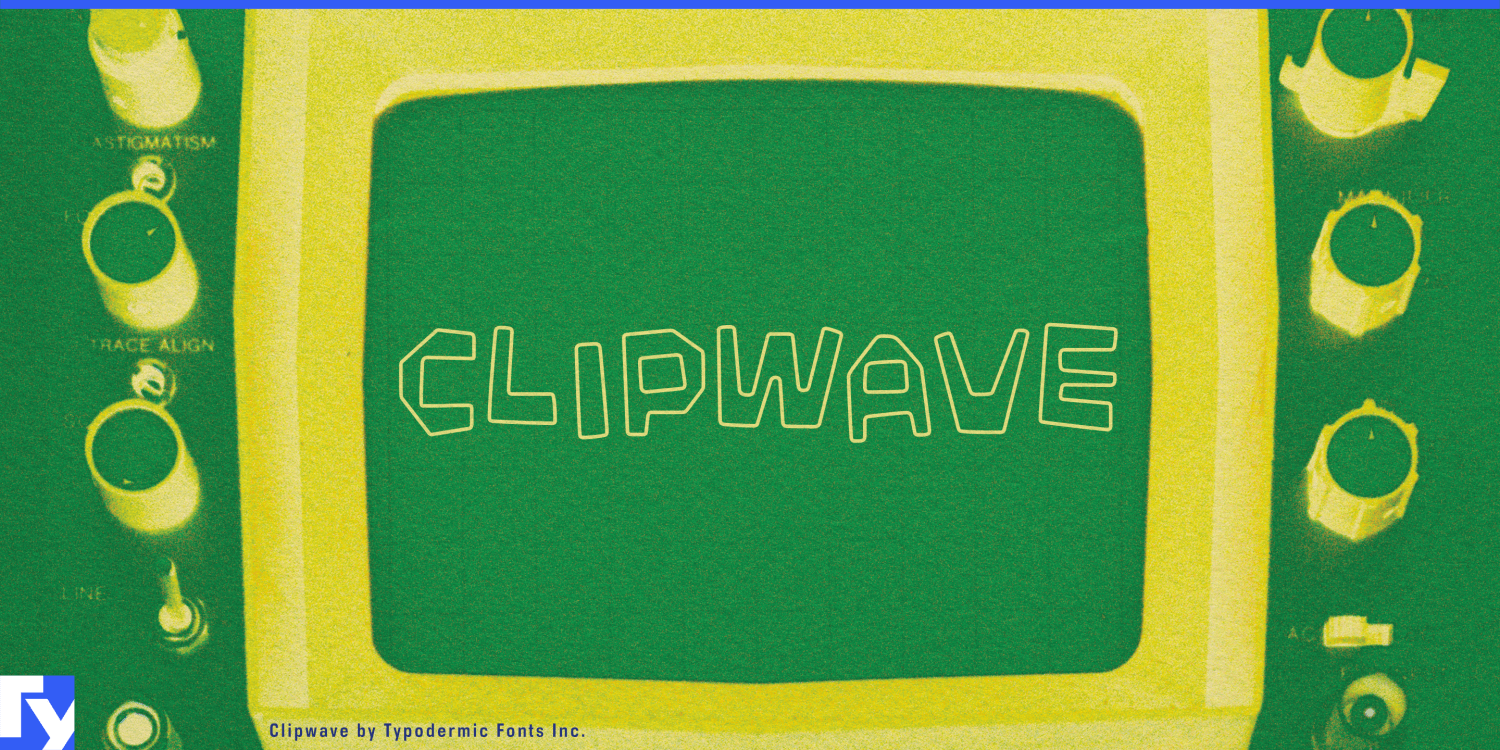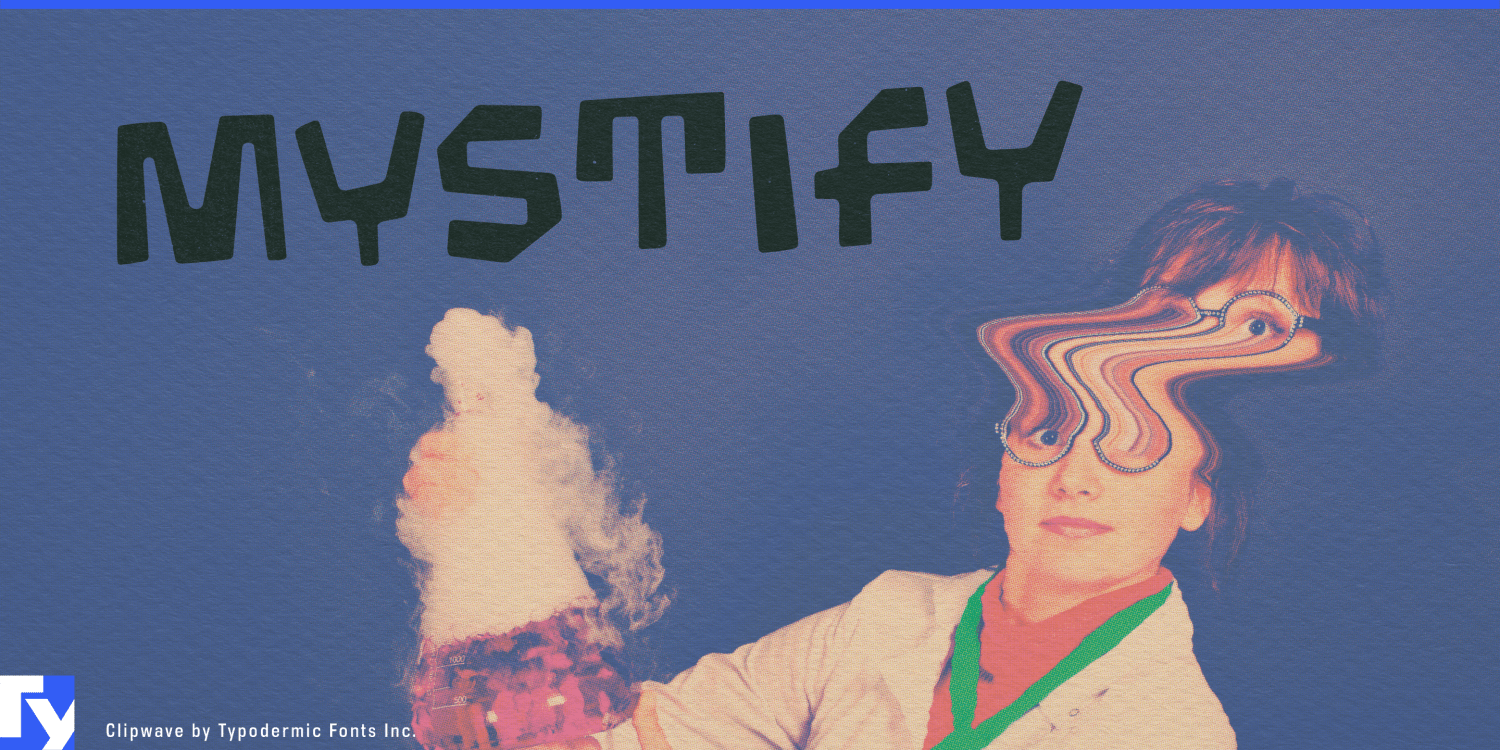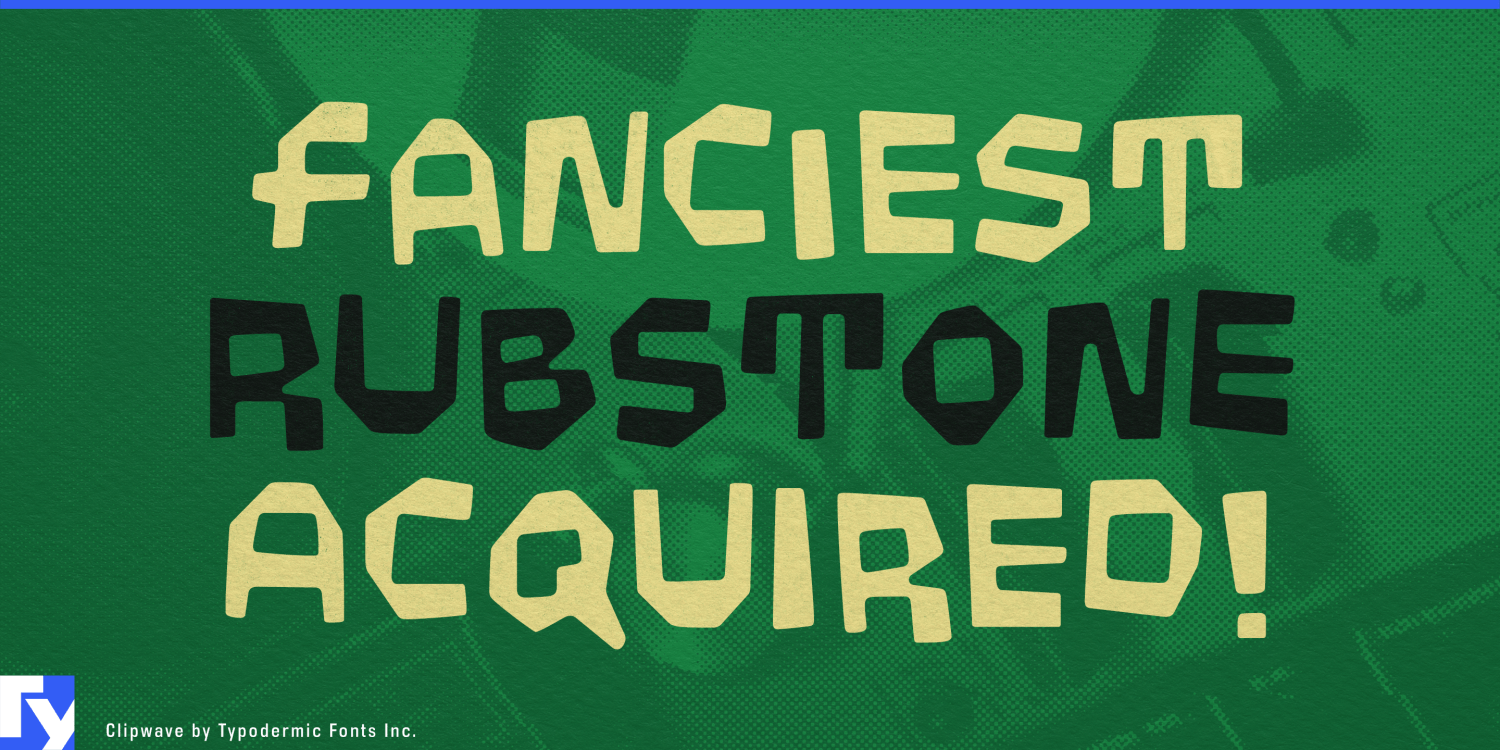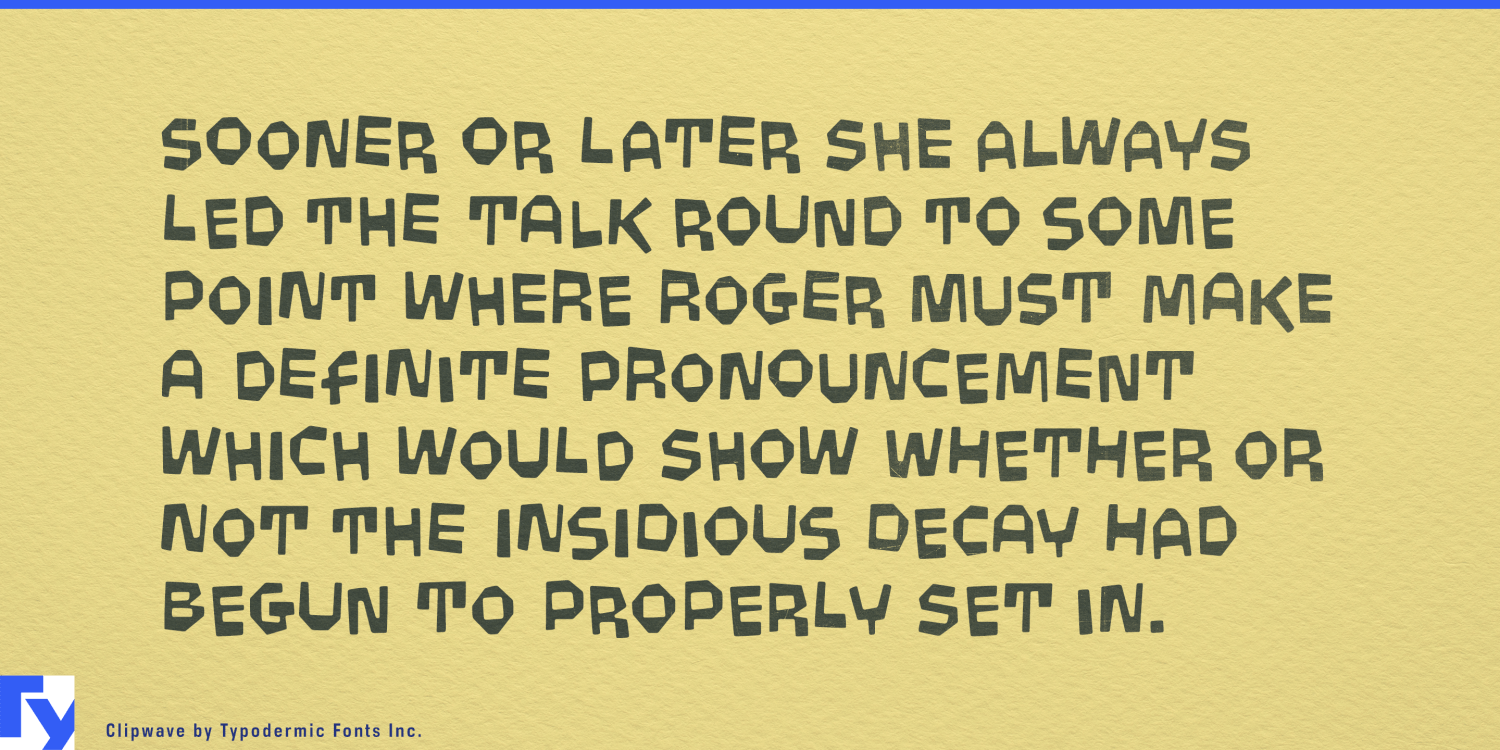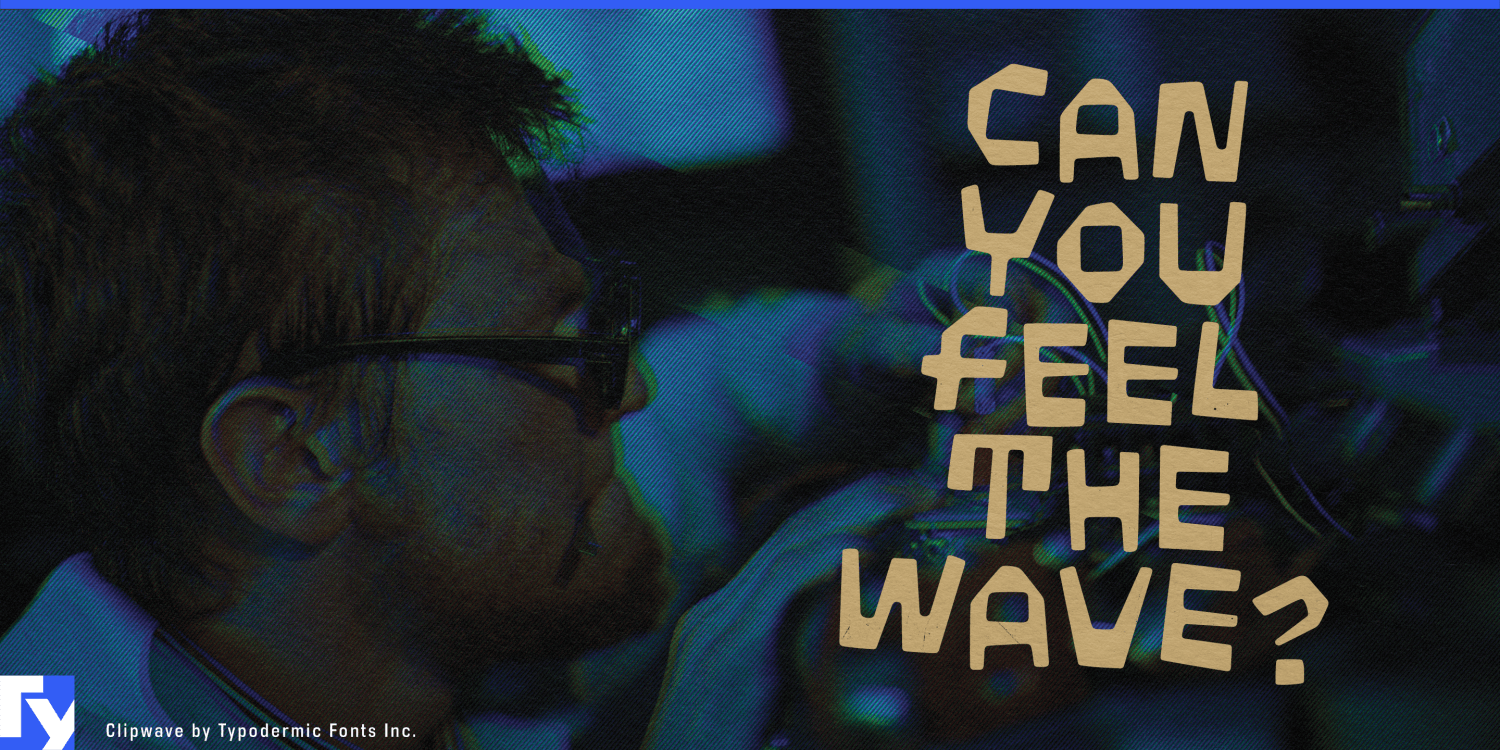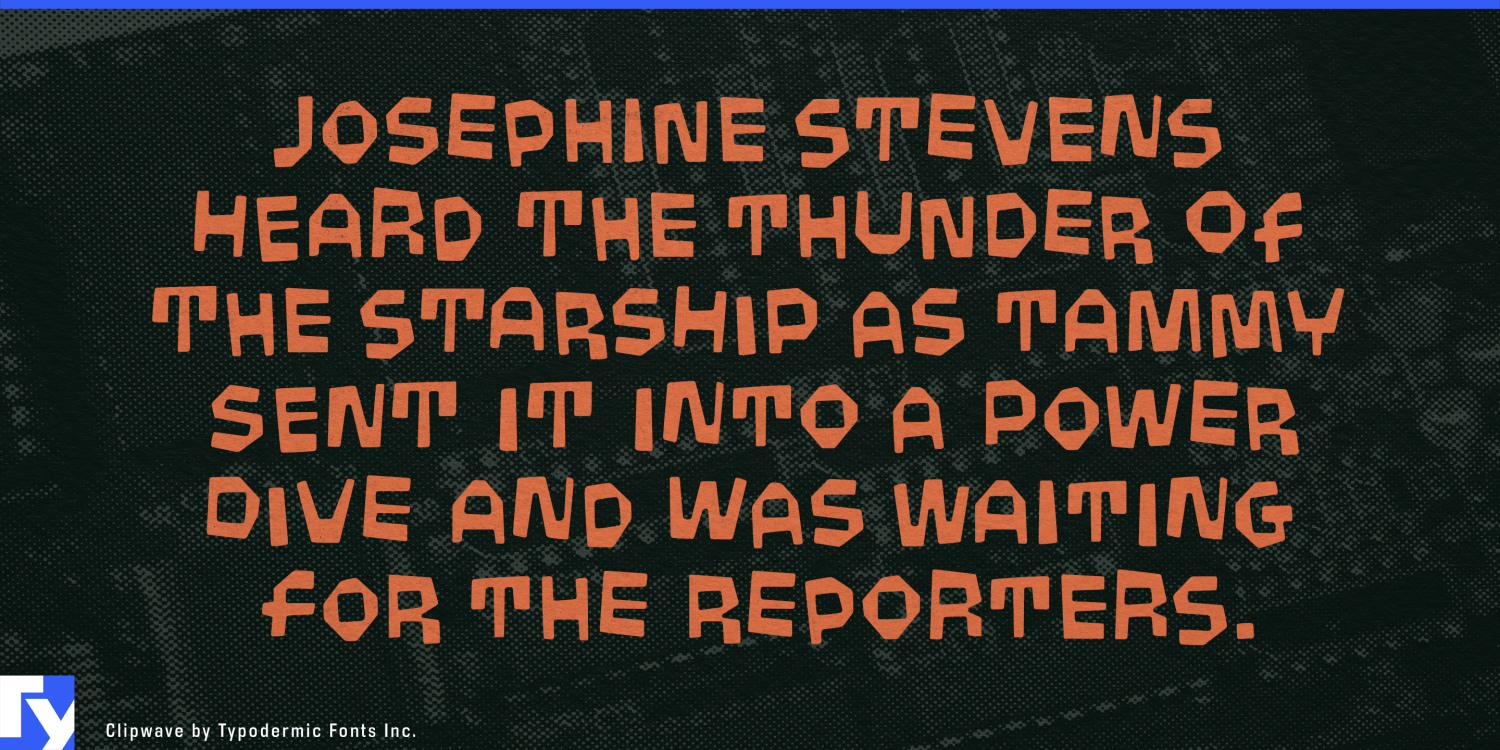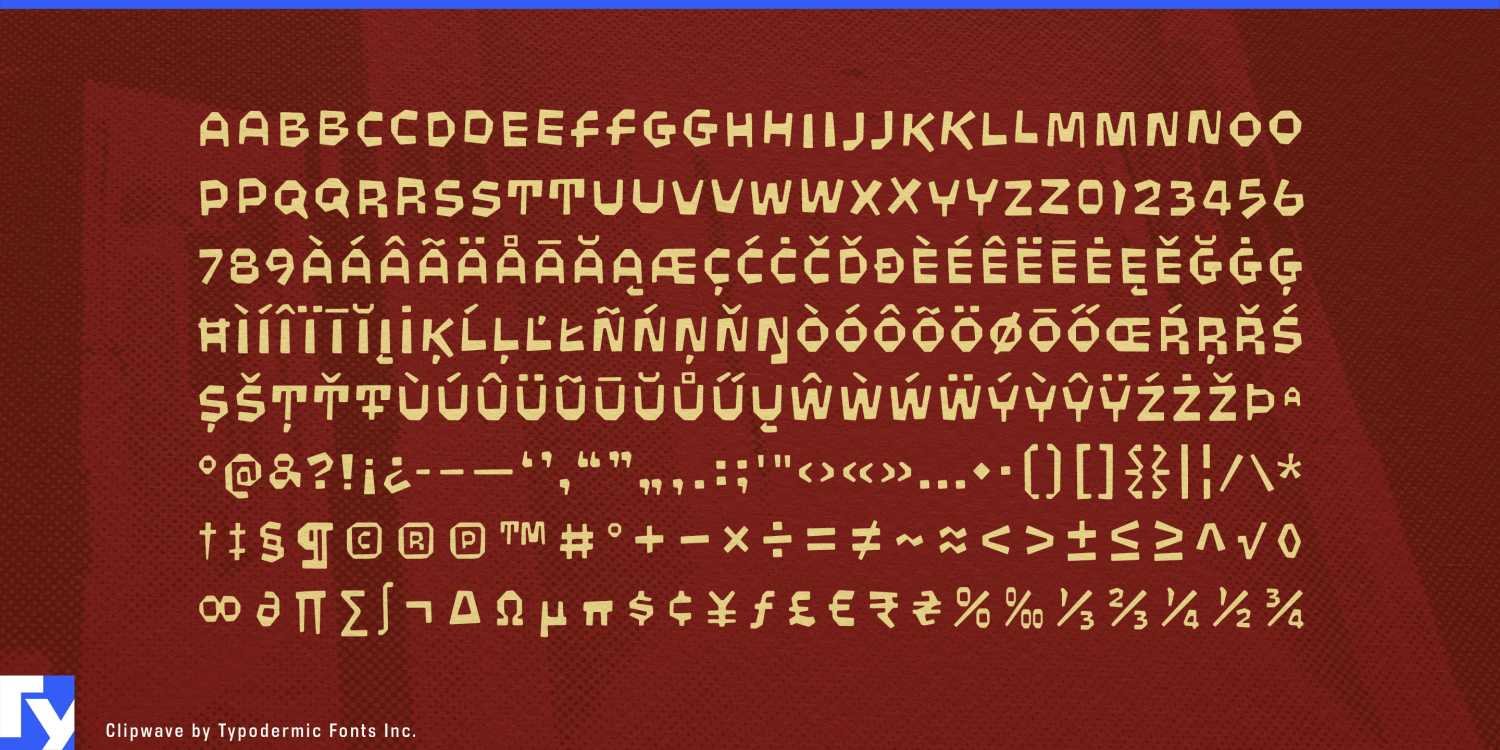
Clipwave
Children’s products need lettering that feels spontaneous, but spontaneity is hard to turn into a system. Hand-drawn display type can become messy, nostalgic, or inconsistent once it has to cover dozens of products, flavors, kits, expansions, signs, and advertisements. Clipwave offers controlled craziness: zany cartoon-lettering energy rebuilt through crisp digital geometry, with automatic character variation that keeps repeated letters from looking mechanically identical.
That makes Clipwave especially useful for construction and creative toys. Building-block systems, magnetic tiles, marble runs, gear kits, snap-together vehicles, robot-building sets, beginner electronics, coding toys, science kits, and mechanical construction sets all benefit from lettering that suggests invention before the box is opened. Clipwave can carry product names, kit titles, expansion packs, instruction-book covers, retail displays, and animated launch graphics while maintaining a recognizable visual language across a large range.
Its slightly robotic quality works particularly well for toys that combine physical construction with technology. Programmable creatures, motorized building systems, screen-free coding toys, modular electronics, and beginner robotics can look technical without becoming clinical. Clipwave feels systematic underneath, but playful on the surface.
Kids’ snacks and candy bring out the same energy in a different way. Sour gummies, chewy candy, fruit snacks, popping sweets, snack puffs, colorful cereal, ice pops, yogurt drinks, and lunchbox treats can use Clipwave for product names, flavor names, limited editions, and promotional bursts. The shifting letterforms add activity before mascots, color, or illustration enter the package, making the typeface especially comfortable around exaggerated flavors, strange shapes, and crowded supermarket graphics.
Clipwave also fits science centers, discovery museums, interactive engineering exhibits, children’s maker spaces, invention labs, and hands-on technology attractions. Zone names, activity stations, challenge prompts, exhibit titles, and campaign graphics can all share the same eccentric system without every sign needing to become a separate piece of hand lettering.
Underneath Clipwave’s wobble is a repeatable geometric structure; on the surface, the letters misbehave just enough to stay lively. That makes it particularly useful for products aimed at curious kids: things built around assembling, mixing, experimenting, inventing, and making a little constructive mess.